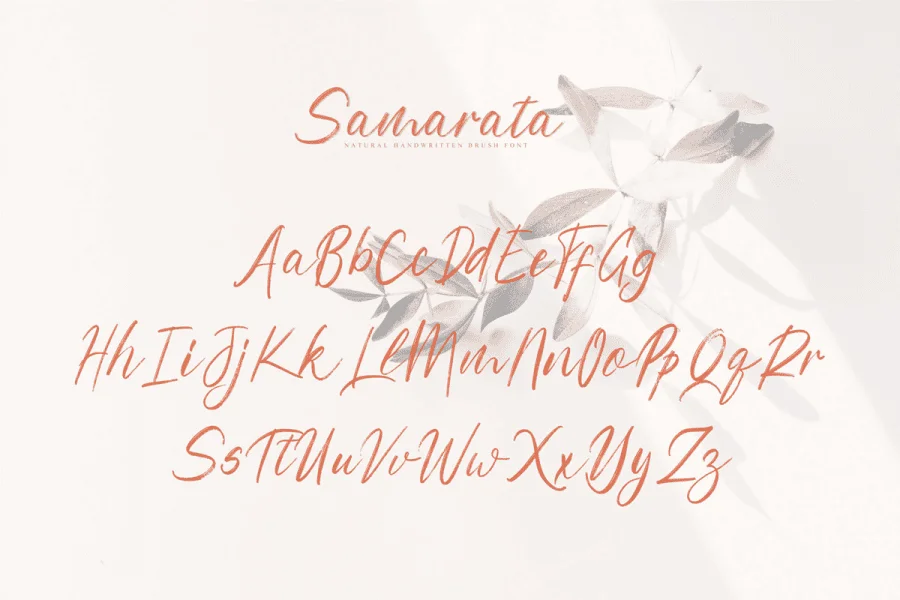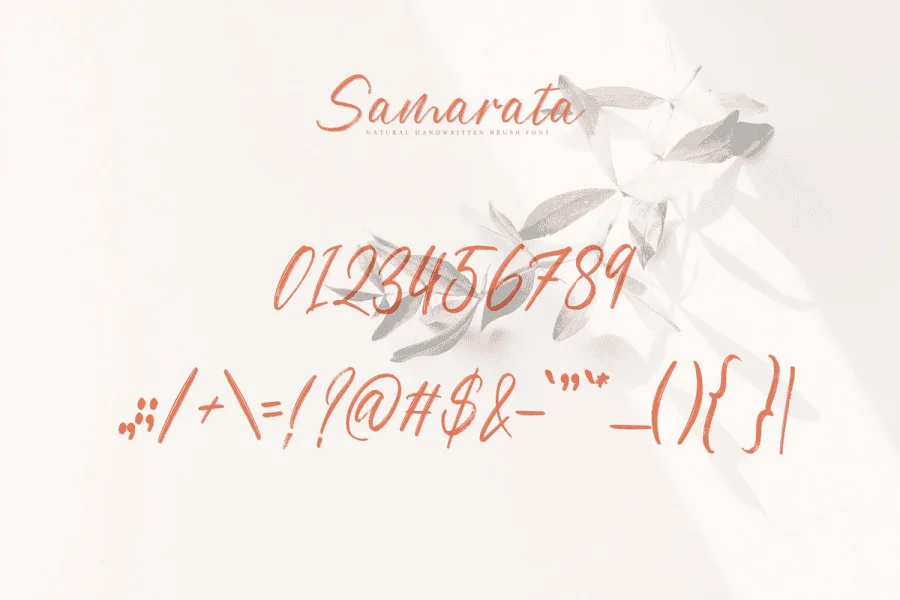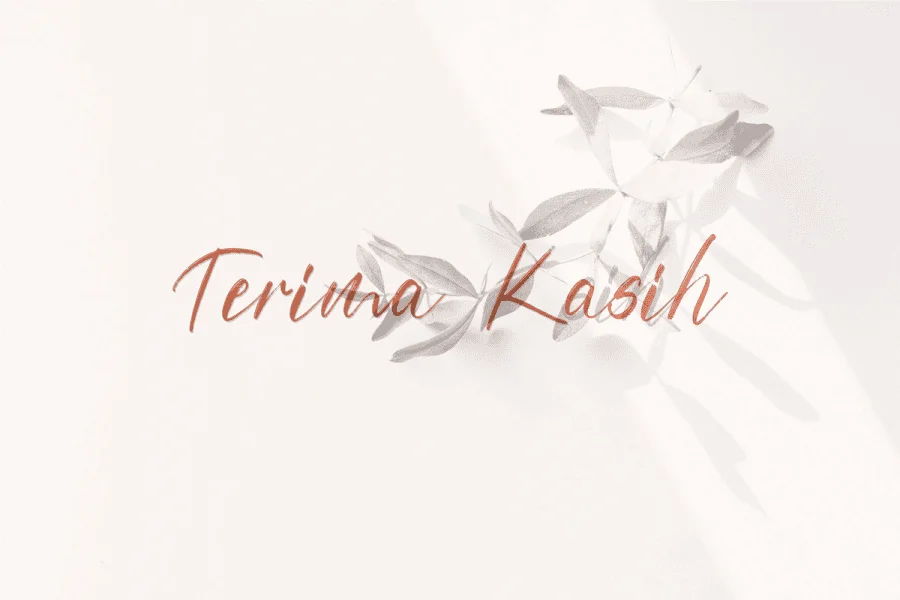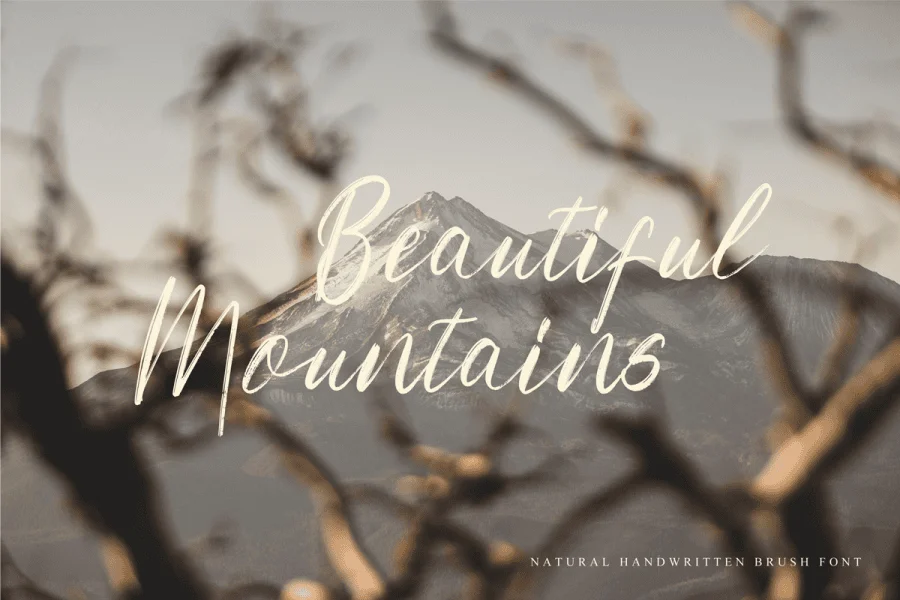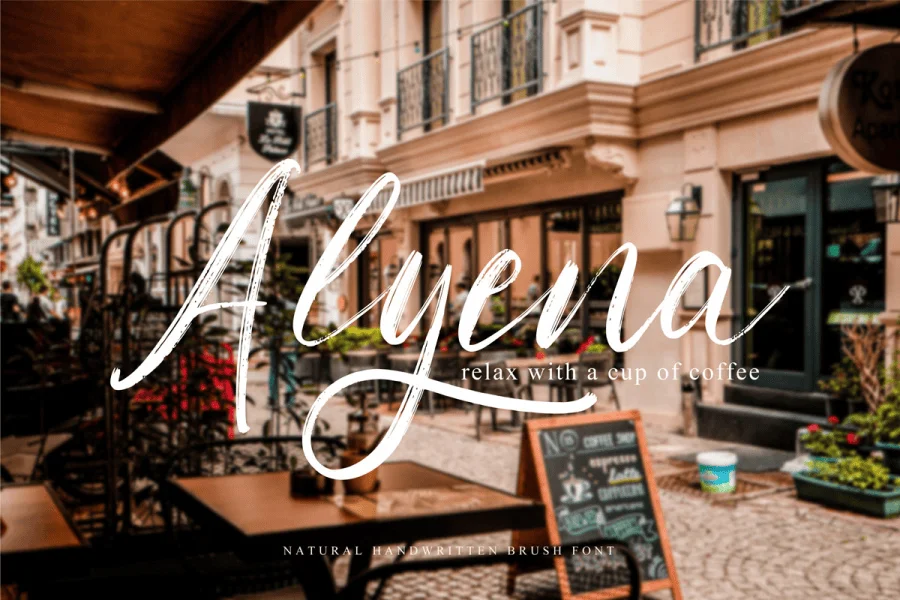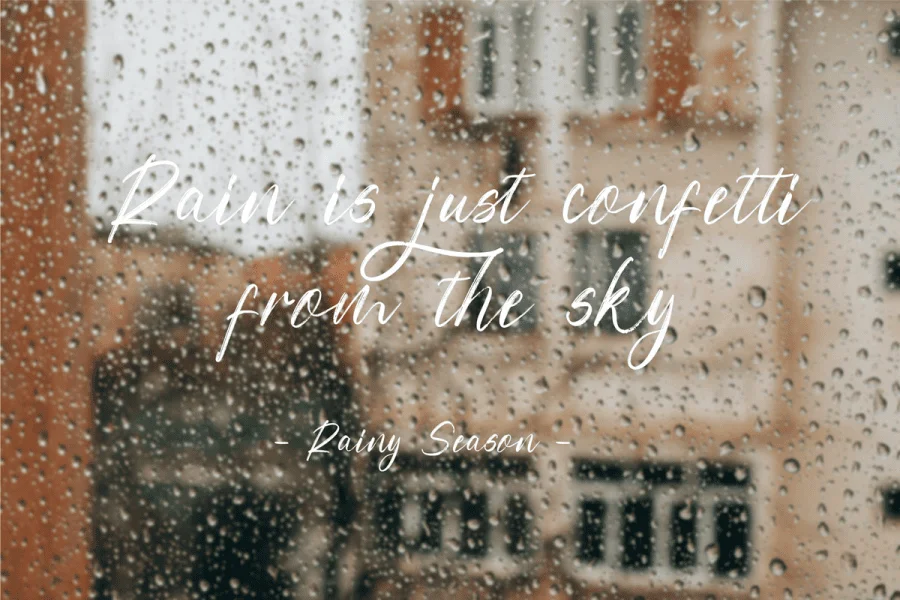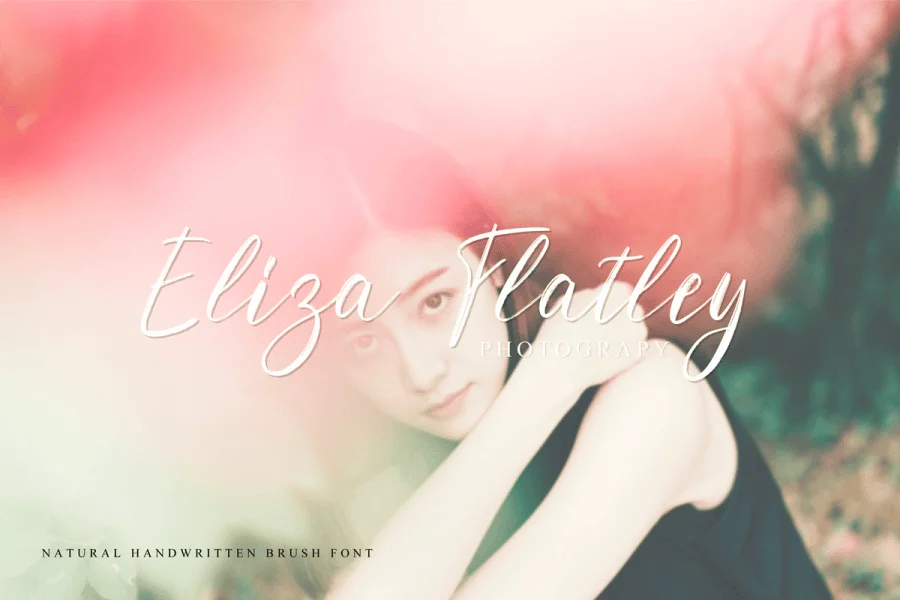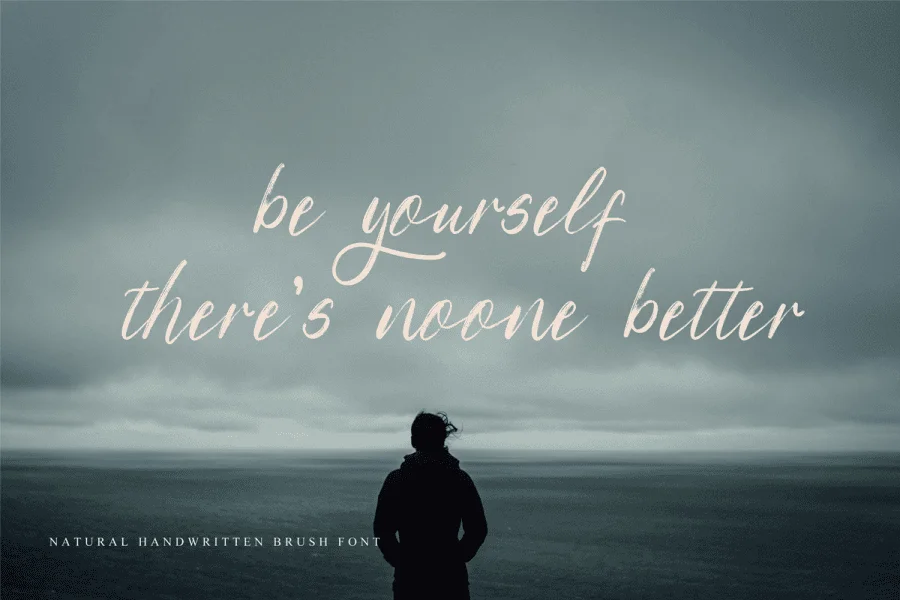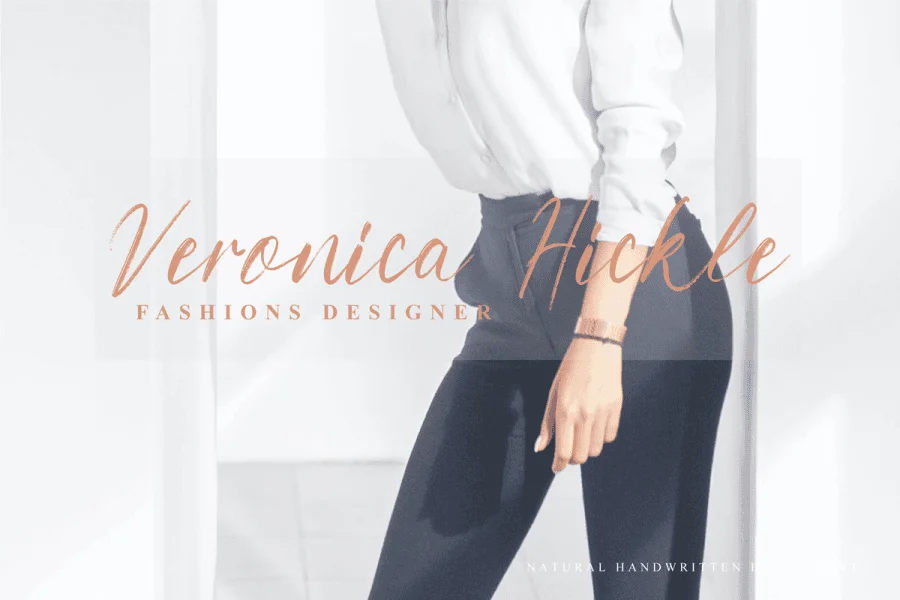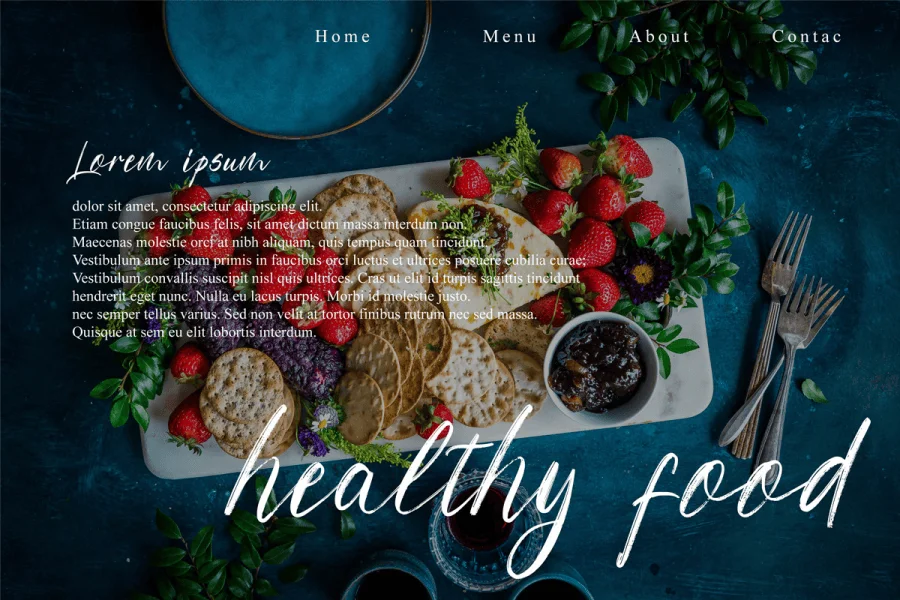
Samarata Font
Samarata – Brush Script Font
Samarata Font is a dynamic and expressive typeface that captures the raw energy of hand-painted brush strokes. With its bold, textured lines and natural variations, this font exudes a sense of creativity and spontaneity, making it perfect for designs that demand a bold, artistic flair. Ideal for logos, posters, packaging, and social media graphics, Samarata adds a striking, handmade touch while maintaining readability. Its rough yet refined aesthetic works beautifully for projects that aim to stand out with an edgy, contemporary vibe.
Versatile and full of character, Samarata blends the charm of traditional brush calligraphy with modern design sensibilities. Whether used for branding, headlines, or editorial layouts, this font delivers a confident, energetic presence. The subtle imperfections and organic flow of each letter give designs an authentic, humanized feel—perfect for fashion, music, sports, or any project that seeks to make a bold, unforgettable statement. Samarata is more than just a font; it’s a powerful visual tool for storytelling.